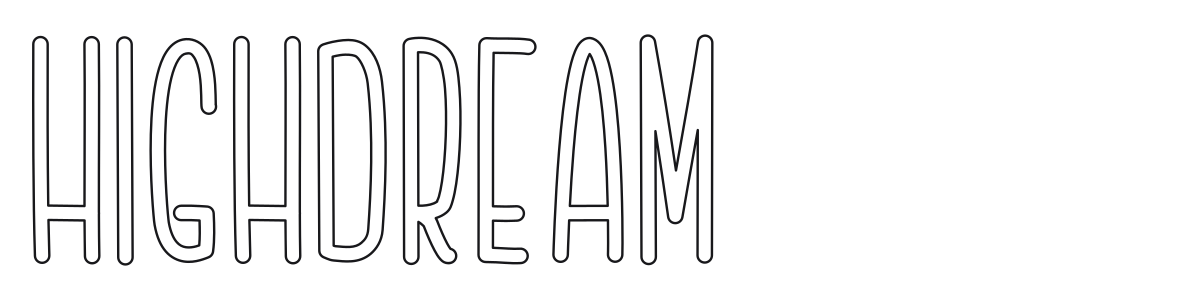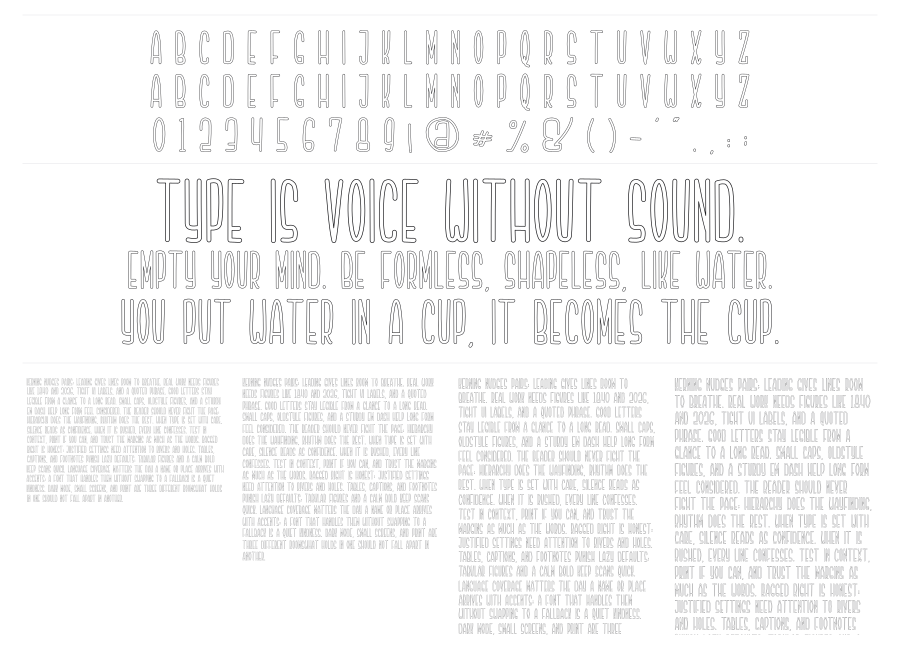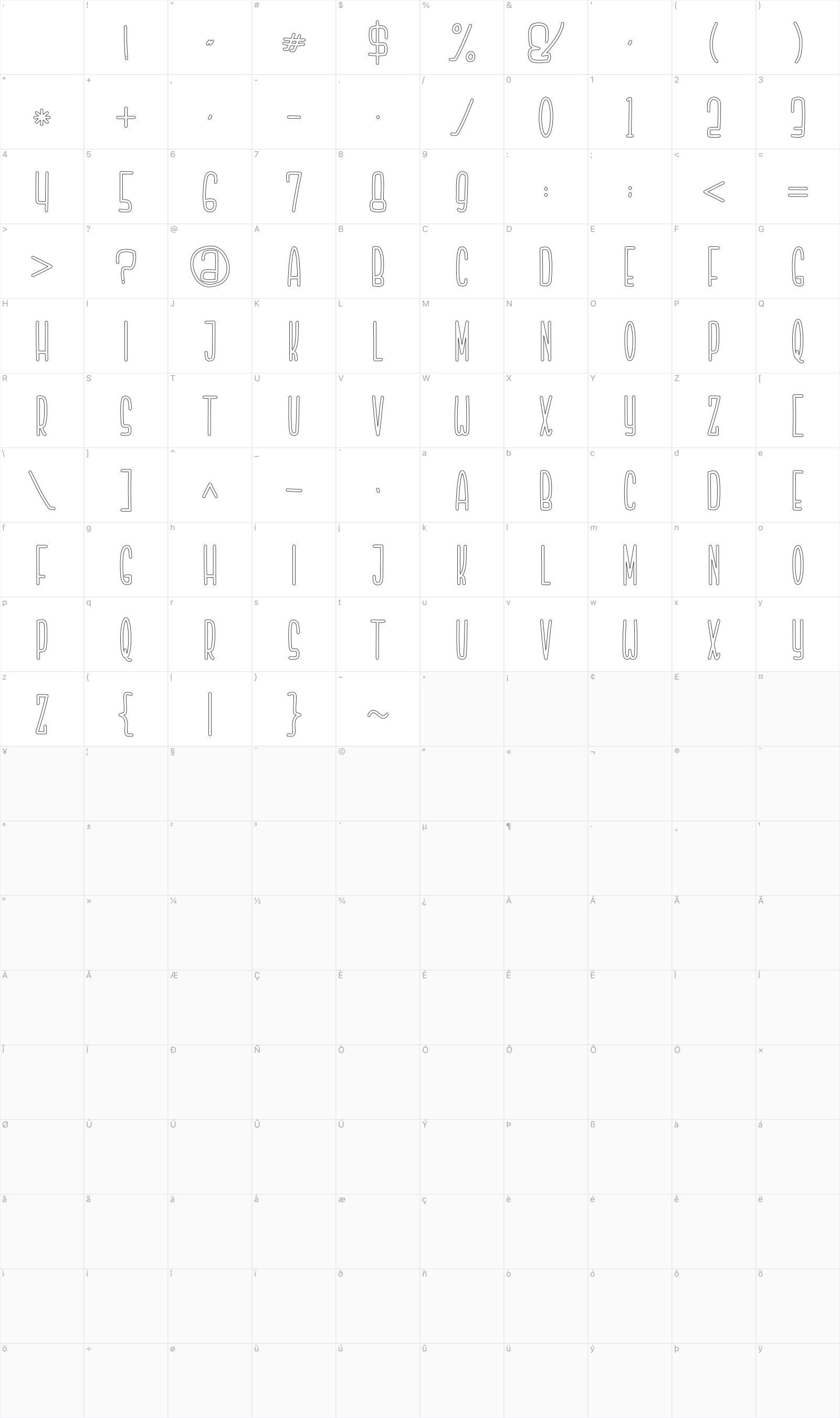
Highdream
Highdream is a tall condensed outline sans-serif with rounded terminals and a clean hollow double-stroke construction. The Art Deco proportions and airy silhouette give it a refined, editorial quality that works well at large sizes. It's the kind of face that reads as contemporary luxury without trying too hard.